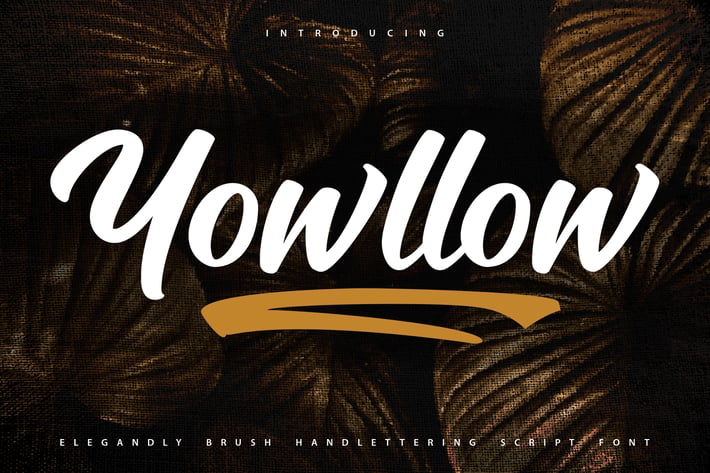
Yowllow | Brush Handlettering Script Font
Yowllow | Brush Handlettering Script Font with a calligraphy style, So beautiful on invitation like greeting cards, branding materials, business cards, quotes, posters, and more!